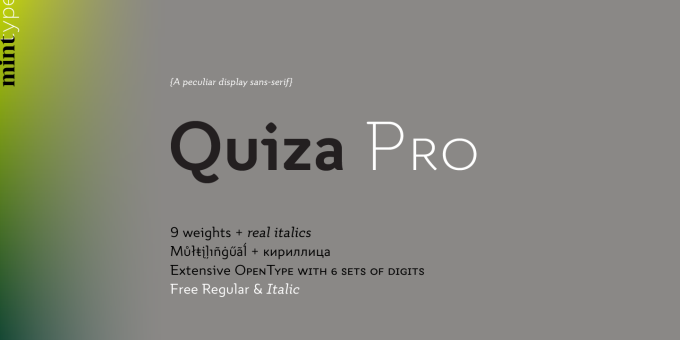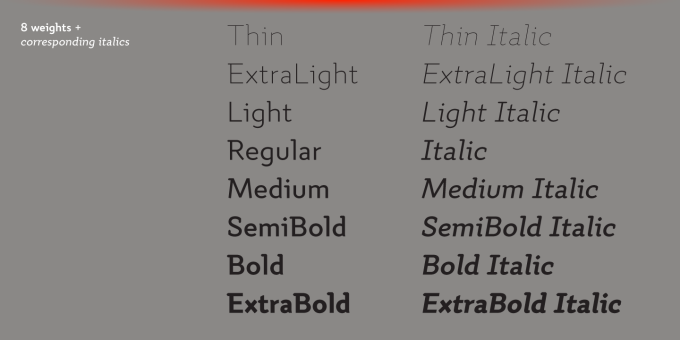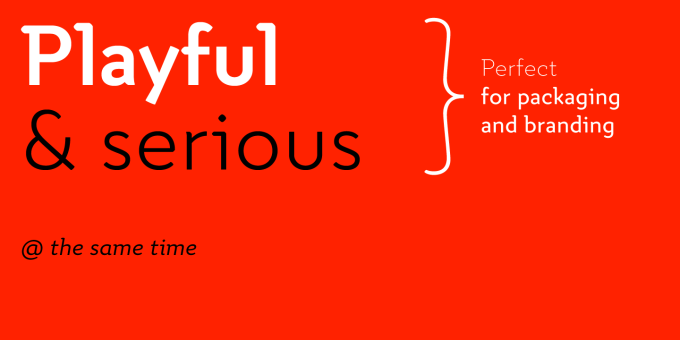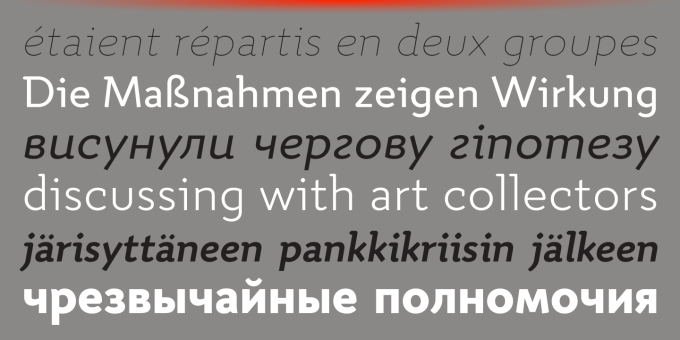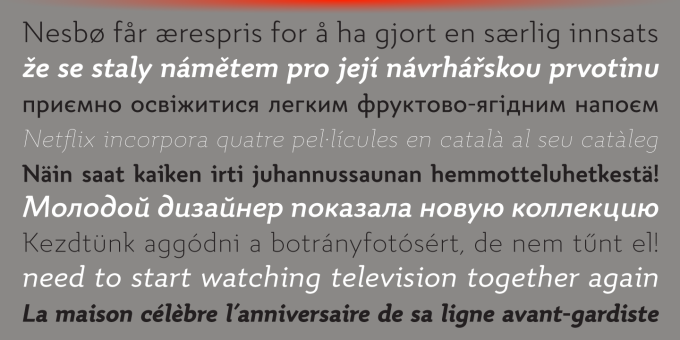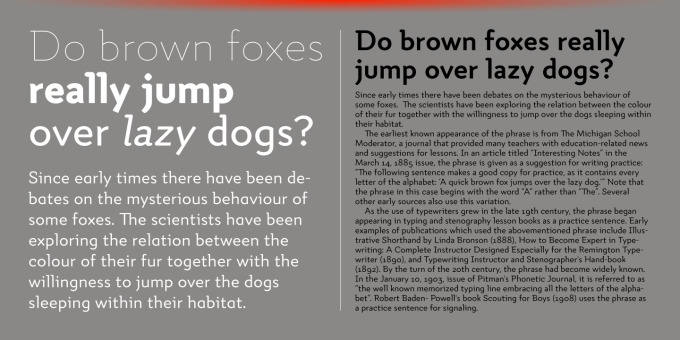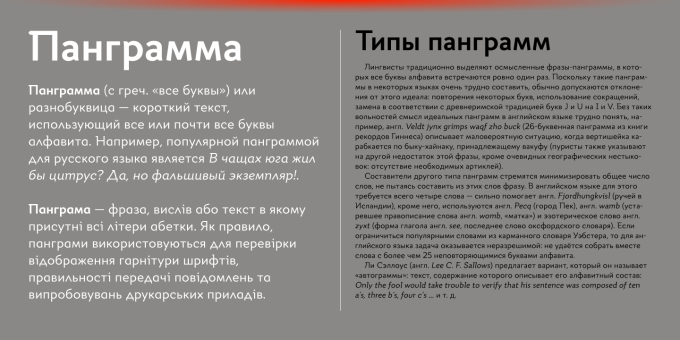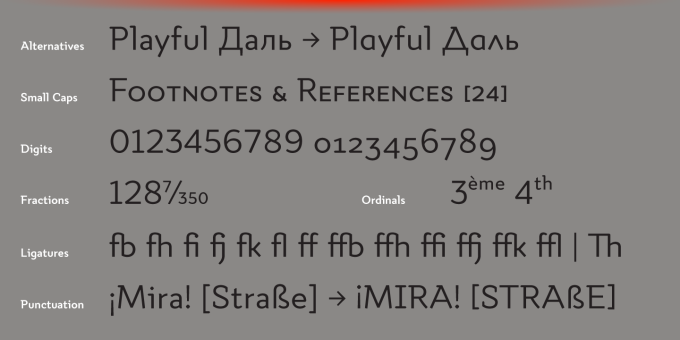
Quiza Pro
Quiza Pro is a geometric display sans with added playfulness created around a single dot. Its peculiar rounded diamond shape inspired many additional details such as similar cuts in diagonal strokes, or occasional serifs in ascenders and capital letters.
Its low x-height together with friendly character makes Quiza Pro an interesting choice for packaging and branding purposes. Additionally, its balanced rhythm allows paragraph typesetting in corporate editorial projects – making it a real workhorse for an identity designer.
Quiza Pro comes in 8 weights + matching italics each supporting numerous Latin-based languages as well as major Cyrillic languages. It is packed with OpenType features like ligatures, small caps, 6 sets of digits, 3 stylistic sets, superiors and inferiors, fractions, ordinals, respective punctuation varieties including all-cap punctuation, as well as language-specific alternates.